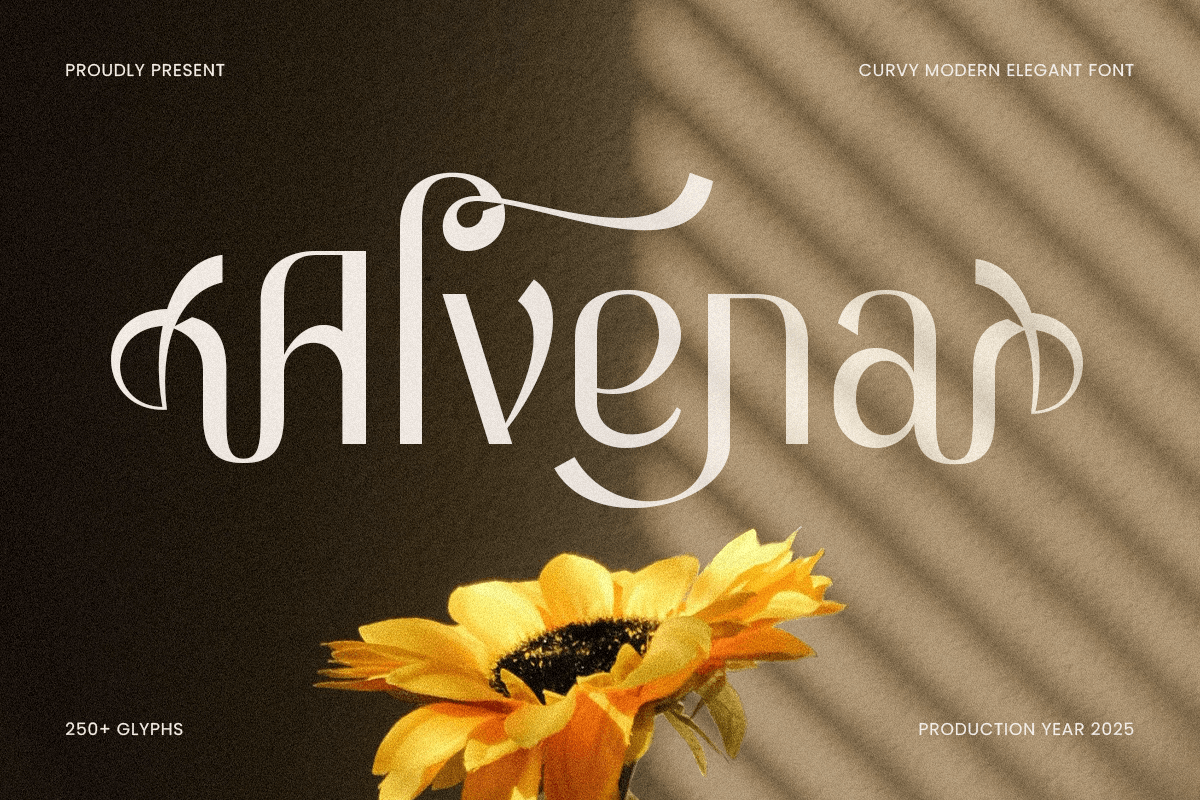
Alvena
-Curvy Modern Luxury Elegant Font
Alvena - Curvy Modern Luxury Elegant Font
ALVENA is a curvy modern elegant font that brings a perfect blend of softness and sophistication to your design projects. Its graceful curves and contemporary serif style make it ideal for high-end branding, luxury logos, fashion editorial, and premium invitations.
Inspired by modern elegance and timeless beauty, ALVENA combines striking curves with a refined structure to create a font that exudes femininity and grace. Whether you're working on a wedding invitation, boutique branding, or editorial design, this font will add a polished and elevated touch to any design project. With its versatility, ALVENA effortlessly adapts to both print and digital environments, making it perfect for any creative project that calls for a chic, elegant feel.
ALVENA – Curvy Modern Elegant Font Features
• Graceful and curvy serif letterforms
• Perfect for luxury branding, fashion, and editorial designs
• Elegant and readable for both print and digital use
• OpenType features Ligature & Alternate for extra versatility and styling